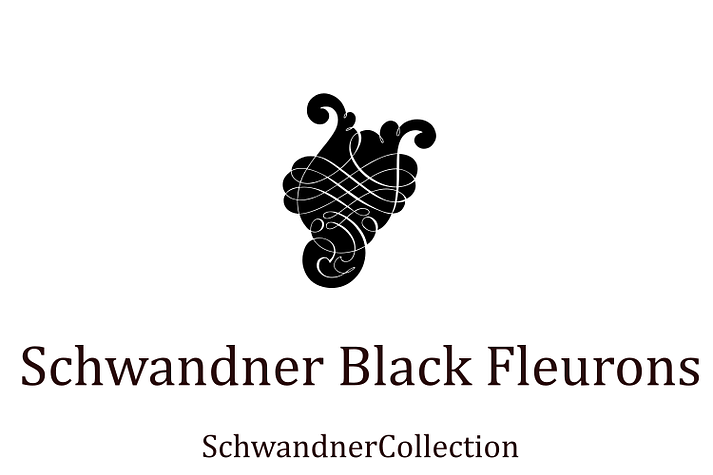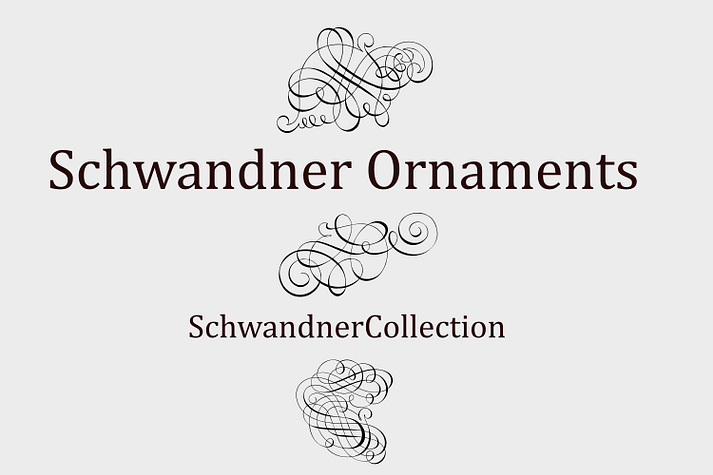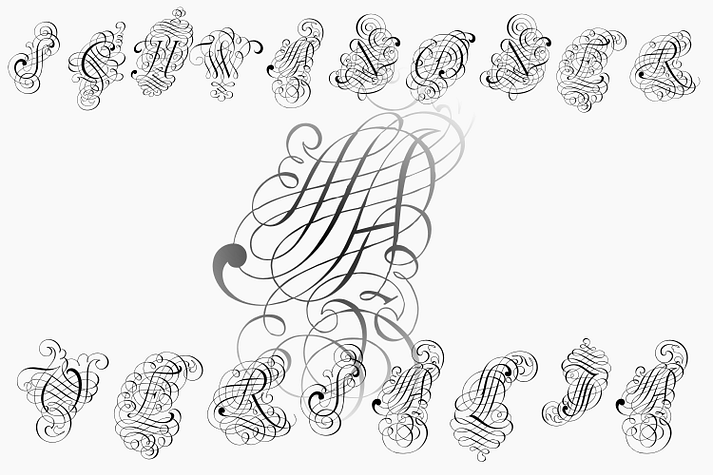
Schwandner Collection
Designed by Paulo W, Schwandner Collection is a monograms and dingbat font family. This typeface has three styles and was published by Intellecta Design.
Schwandner Versalia is a highly intrincated decorative capital from the work of Johann Georg Schwandner (1716-1791). An accurate historical revival and interpretation of Iza W, and edition of Paulo W. State-of-art to use in headings, chapter initials from books, magazines and other publications. Also use in baroque and renaissance inspired layouts, or modern mixed proposals.
Schwandner Ornaments are a set of very intrincated and recherché ornaments from the work of Johann Georg Schwandner, and the last piece of this collection is Schwandner Black Fleurons. These ornaments and fleurons are state-of-art to use in headings, magazines and other publications.